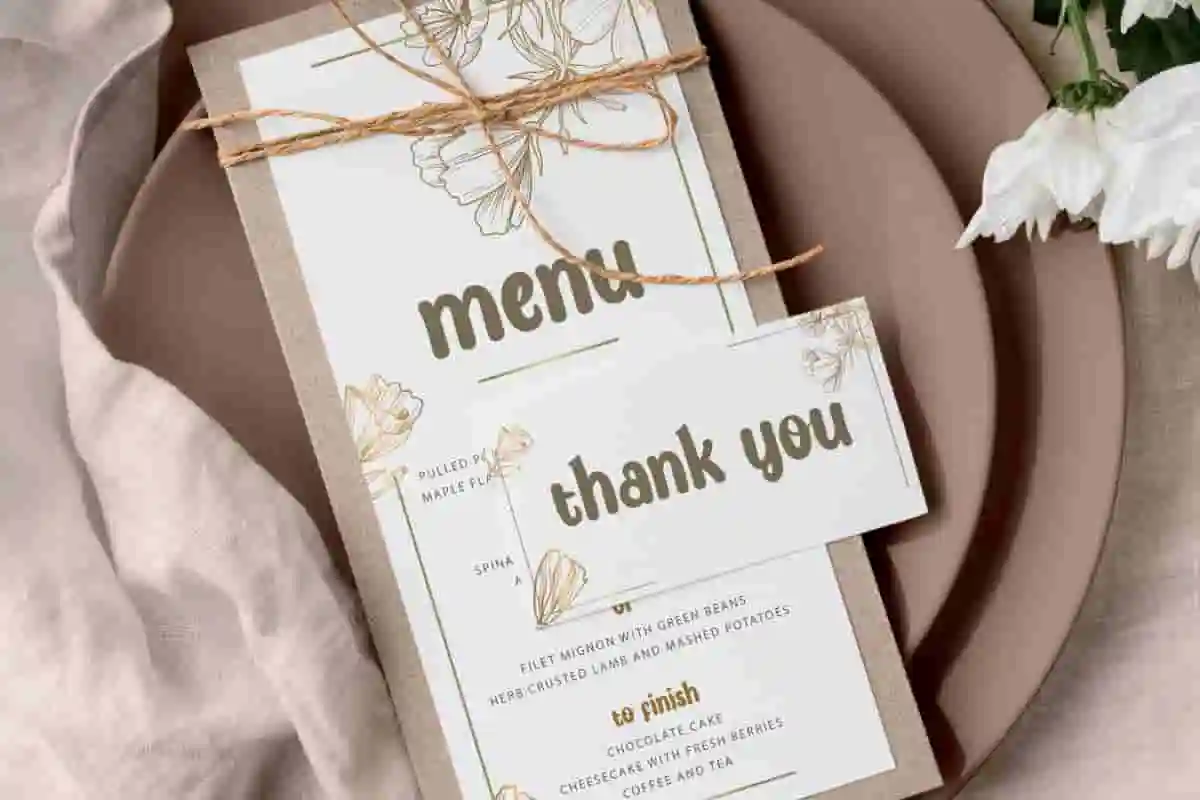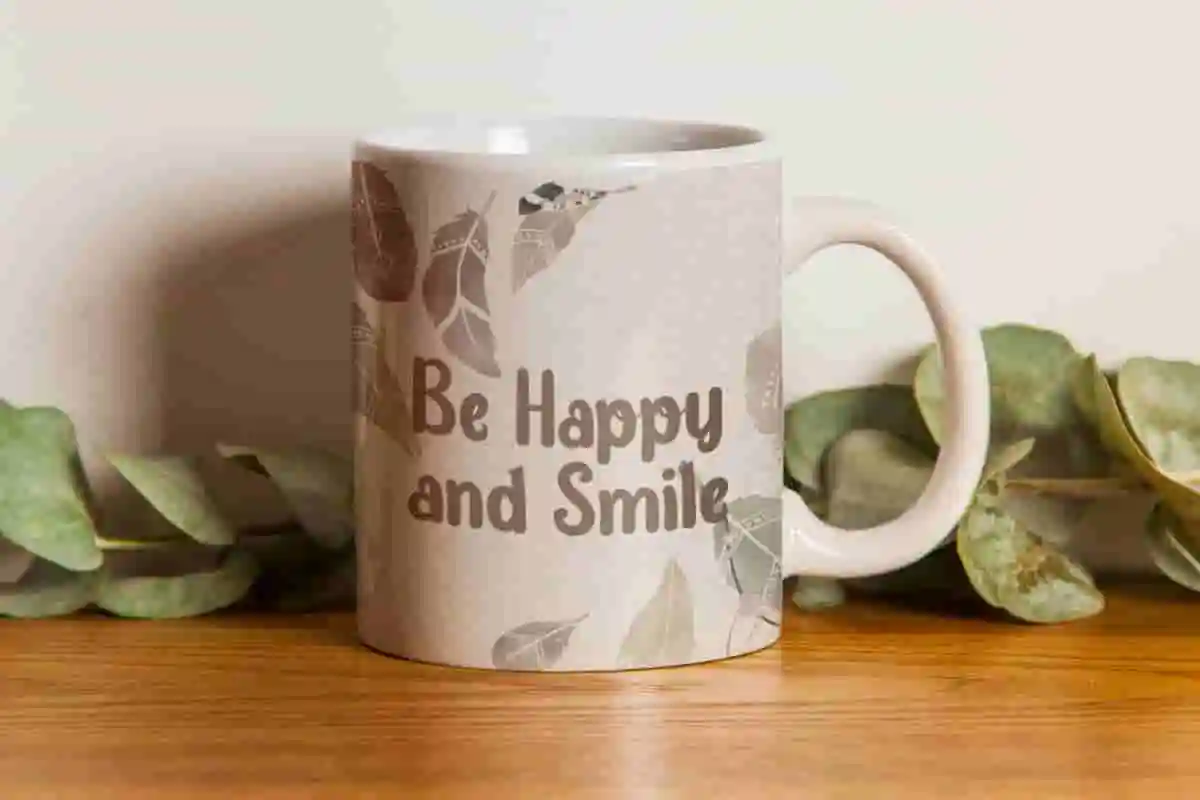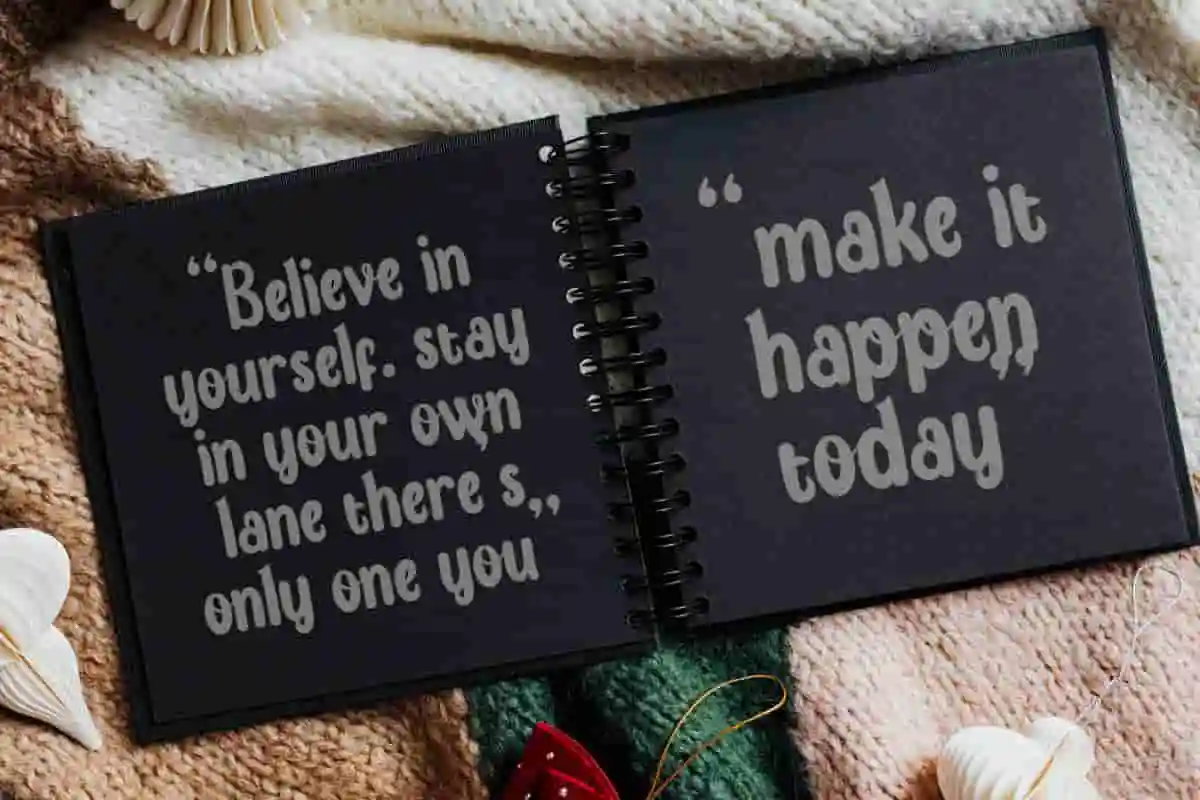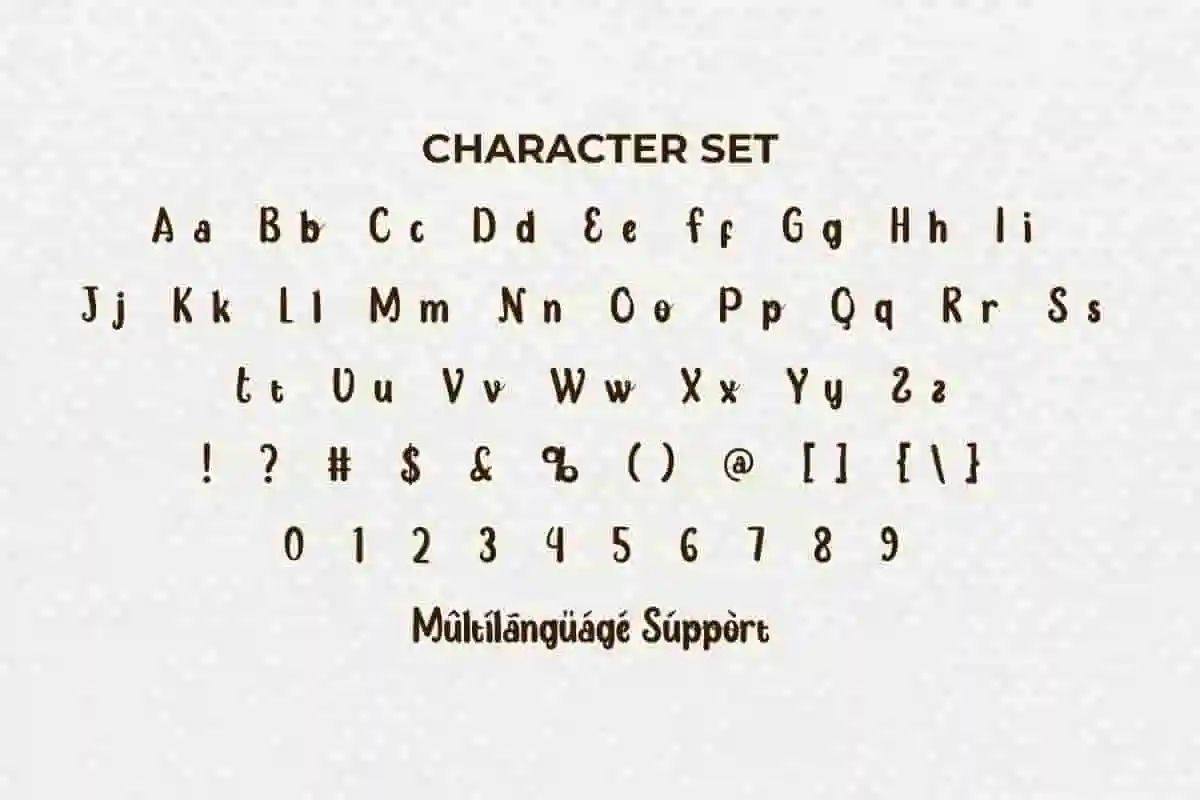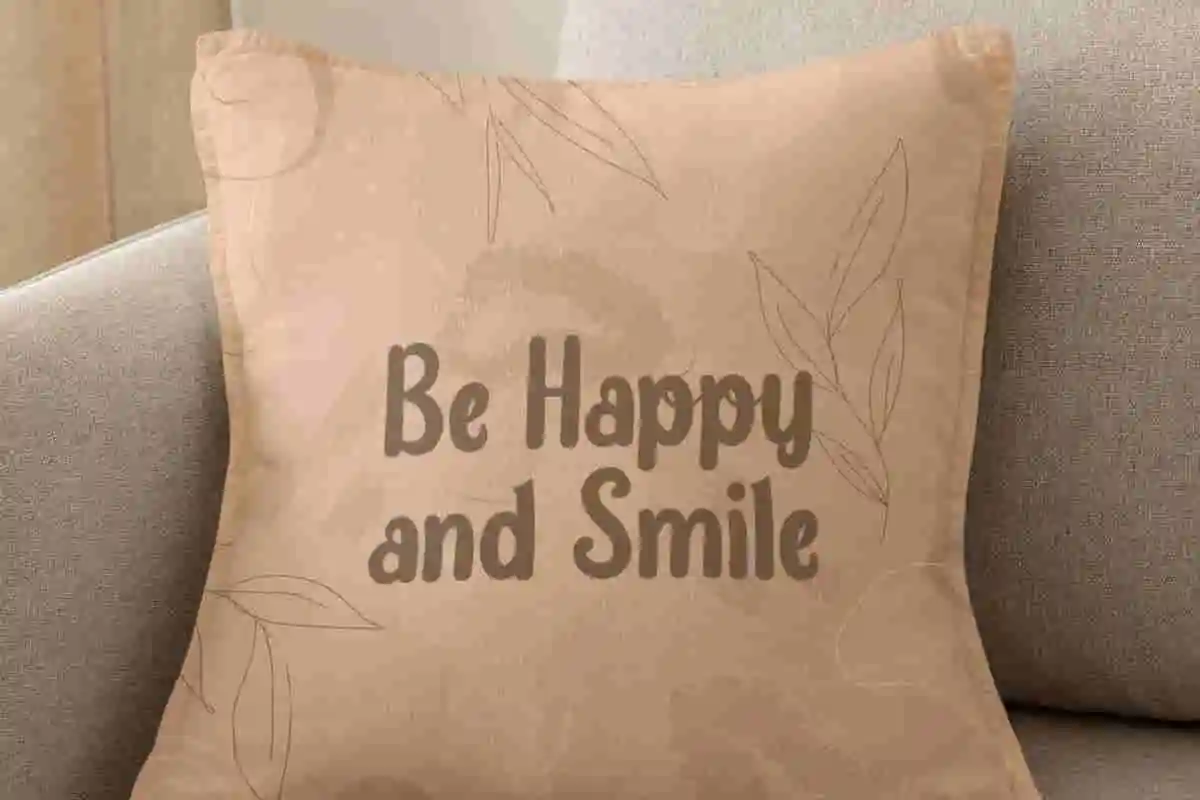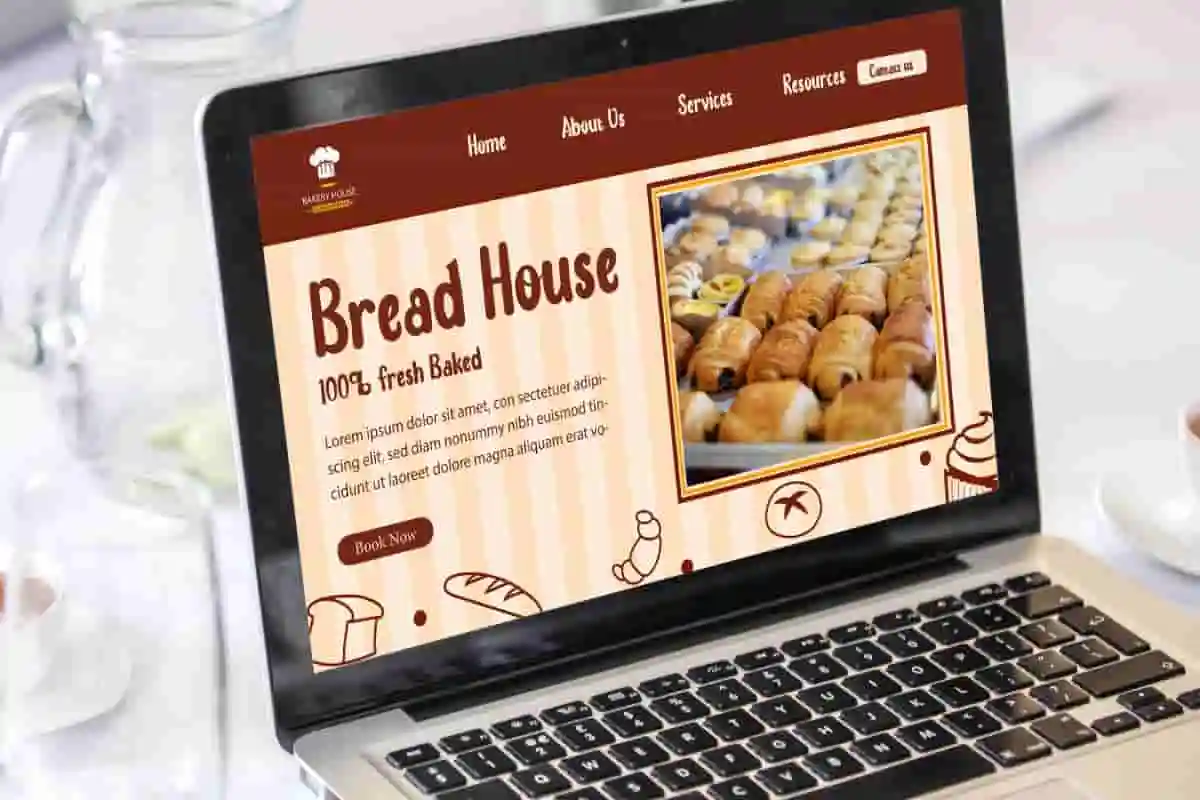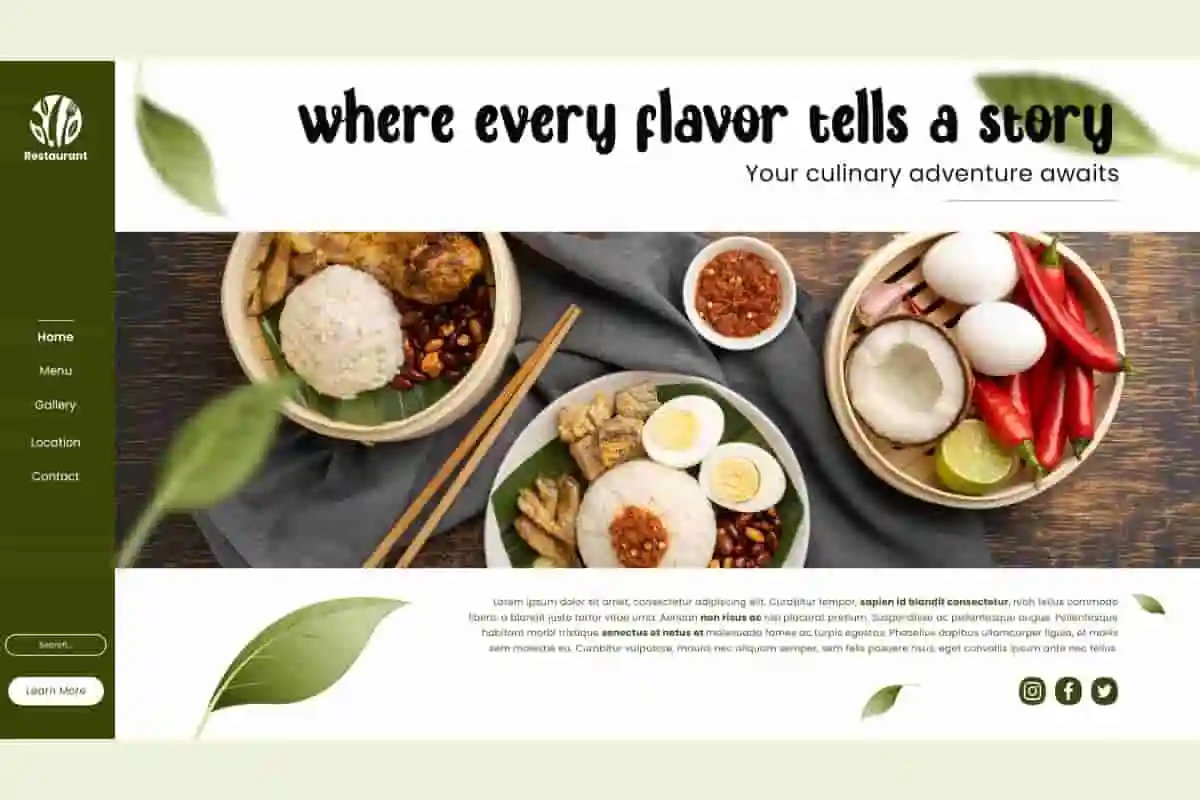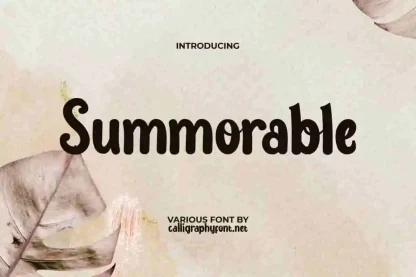
Summorable Display Font
Summorable Font is an adorable display font which will give a cute and stylish to each character!
Summorable Font is a modern and stylish yet adorable display font. Even though it is short and quite bold, this font can be used together with other types of fonts. It will be good to complement any project design, such as brand image, brochure, cover, custom design, flyer, invitation, label, marketing material, menu board, poster, screen print, signage, stationery, sticker, website page, and many more!
Bring the warmth and vibrancy of summer to your designs with Summorable Display Font! This fresh and stylish display font is crafted to evoke sunny days, beach vibes, and carefree moments, making it perfect for seasonal branding, invitations, posters, and more. Summorable features smooth, flowing letterforms combined with playful touches that create an inviting and relaxed feel.
Capture the carefree spirit of summer with Summorable Display Font, a vibrant and fresh typeface perfect for adding warmth and fun to your projects. Whether you’re creating event flyers, travel brochures, lifestyle branding, or social media graphics, this display font radiates sunshine and good vibes. This font features smooth, elegant curves combined with playful elements that give your text a relaxed yet stylish look.
Step into the sunshine with Summorable Display Font, a lively and modern display typeface crafted to bring warmth, joy, and a fresh vibe to your creative projects. Perfect for everything from summer festivals, travel promotions, lifestyle branding, to seasonal packaging, Summorable captures the essence of carefree summer days.
- Bright & Playful Style
- Complete Character Set
Summorable Font can make each of your designs look cute with its style, so it can be used by various industries, such as accessories, advertising, bakery and pastry, content creator, event or festival, fashion, food and beverages, graphic design, handicraft, interior design, kids stuff, printing, publishing, restaurant, etc.
Summorable Font comes with a full set of Uppercase and Lowercase Basic Characters, Number, a large range of Punctuation, and Symbol. It also comes with multilingual character support. Ready to use both on Windows machine or Mac with simple installations. It’s tested to work well in the Adobe Apps (Illustrator, Adobe InDesign, Adobe Photoshop) CorelDraw, and others. PUA Encode Characters means you can access all the characters easily – Fully accessible without additional design software.